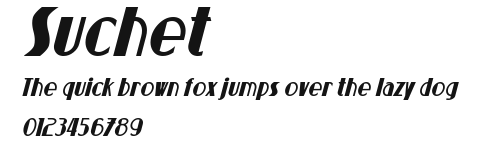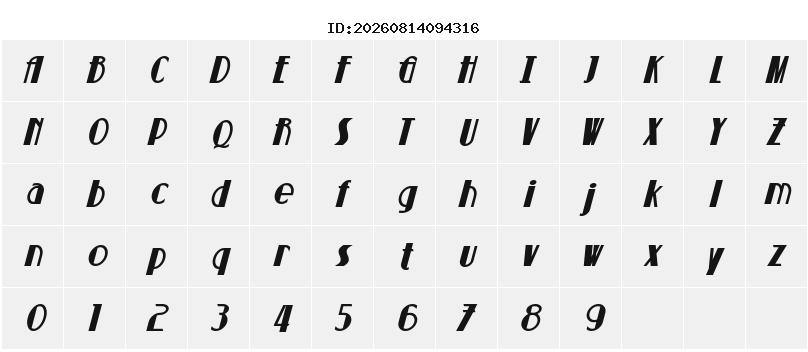
• Font Name: Suchet
• Designer: Neale Davidson
About Suchet.ttf
Suchet.ttf is a modern, elegant sans-serif font designed for ultimate readability and visual harmony. Perfect for branding, headlines, web design, and print materials.